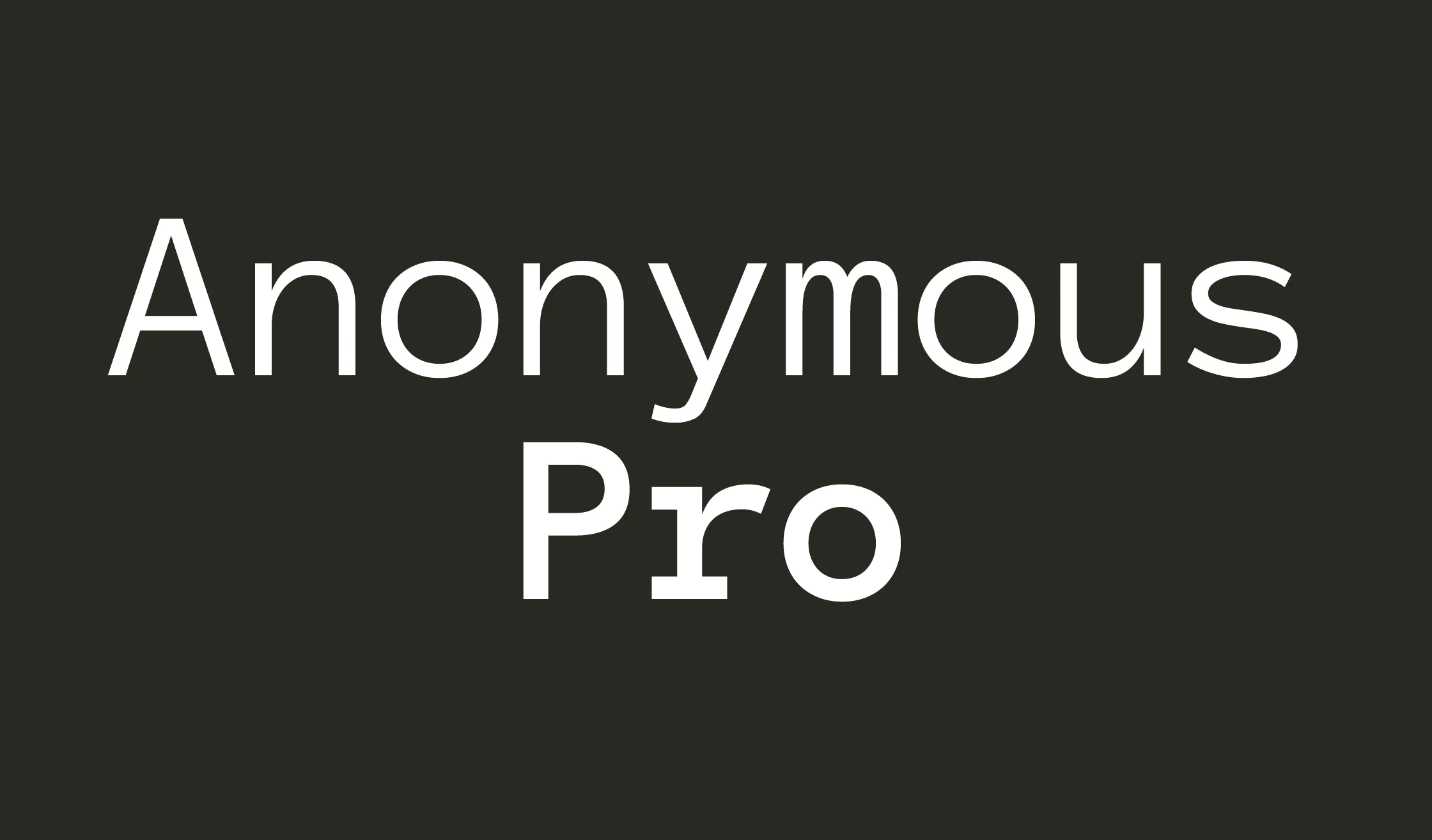
Anonymous Pro Minus Font
The Anonymous Pro Minus Font is perfect for programming code editors, technical documentation, developer tools interfaces, terminal applications, software development environments, coding tutorials, tech blog content, command line interfaces, programming textbooks, and professional development communications.
What makes the Anonymous Pro Minus Font so exciting is its exceptional combination of coding precision with enhanced readability that creates the perfect monospaced typeface for professional programming and technical applications. This specialized typeface features optimized character spacing, clear letter distinction, and programmer-focused design elements that establish superior code legibility perfect for developers demanding the highest standards of coding typography. The font's technical personality and programming optimization make it an exceptional choice for software developers, technical writers, and coding educators seeking to communicate code clarity, professional development standards, and authentic programming expertise with uncompromising functionality.
The Anonymous Pro Minus Font family includes coding variations and technical alternates, featuring regular and bold weights, italic styles, and programming-optimized character sets. Each variation maintains the signature coding appeal while offering different levels of visual emphasis and technical functionality, providing developers with complete flexibility for creating clear code hierarchies and professional programming documentation systems.
This exceptional Anonymous Pro Minus Font Free Download represents the ultimate programming typography solution for developers who need superior monospaced fonts that enhance code readability and reduce programming fatigue. Whether you're developing software applications, creating technical documentation, or designing coding educational materials, this versatile programming font ensures your code displays with maximum clarity and professional programming standards.
The precise monospaced engineering of Anonymous Pro Minus Font demonstrates expert programming typography craftsmanship, with each character optimized for perfect alignment, exceptional code legibility, and visual consistency across all programming contexts. The font's comprehensive character set includes complete programming symbols, technical punctuation, coding operators, and development-focused glyphs, ensuring seamless functionality for all programming languages and technical documentation requirements.
Specifically engineered for coding and technical applications, this remarkable font maintains perfect monospaced clarity and programming precision across all development environments and platforms. From integrated development environments to technical publications, Anonymous Pro Minus Font performs exceptionally while preserving its distinctive programming character and professional technical appeal.